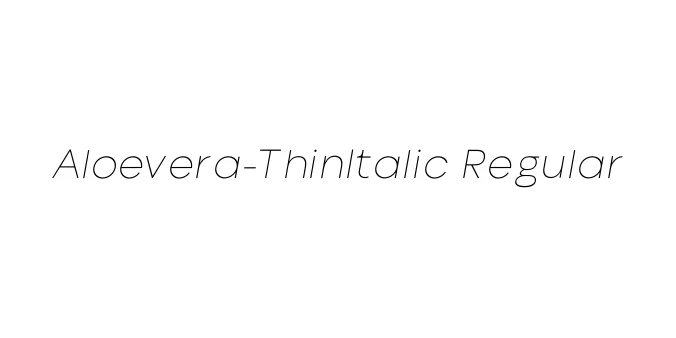
Aloevera-ThinItalic Regular
Designed by Zulhelman
Aloevera-ThinItalic Regular is a sophisticated and contemporary sans-serif typeface designed to exude elegance and refinement. Part of the broader Aloevera family, this thin italic variant features delicate, slender strokes and a graceful slant that provides a sense of fluid movement and high-end aesthetic. It was meticulously crafted to meet the needs of designers looking for a minimalist yet impactful font that conveys luxury and modernity.
The typeface is particularly well-suited for high-resolution displays and premium print materials, where its subtle curves and precise geometry can truly shine. Aloevera-ThinItalic balances artistic flair with functional legibility, making it an excellent choice for projects ranging from high-fashion editorial layouts to minimalist digital interfaces where a touch of class is required without overwhelming the visual hierarchy.
Aloevera-ThinItalic Regular Best Uses
Perfect for luxury logos, high-end skincare packaging, and premium identity systems.
Excellent for magazine headers, stylish pull quotes, and sophisticated subheadings.
Ideal for minimalist website hero sections and clean, modern user interfaces.
Great for high-fashion ad campaigns and minimalist social media graphics.